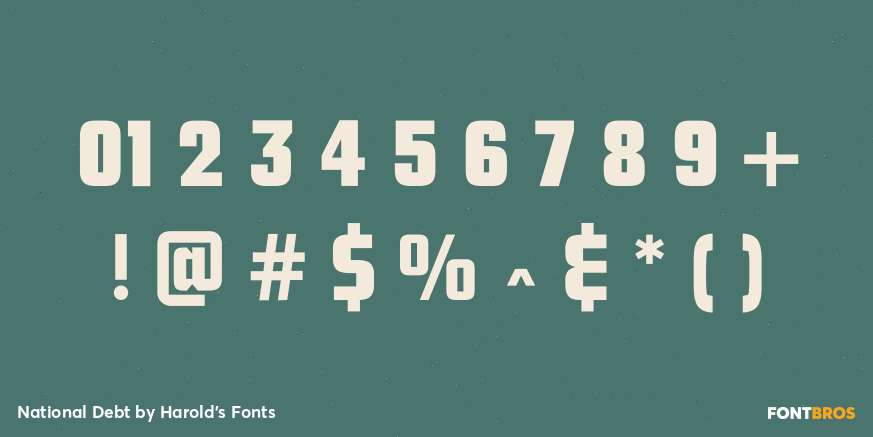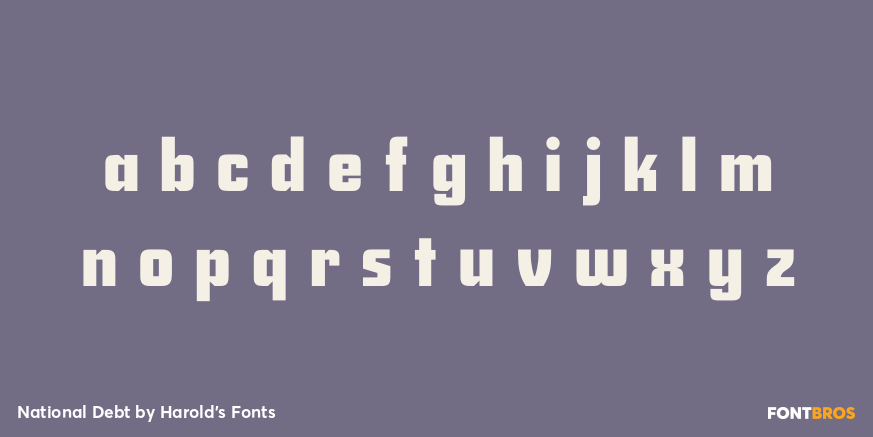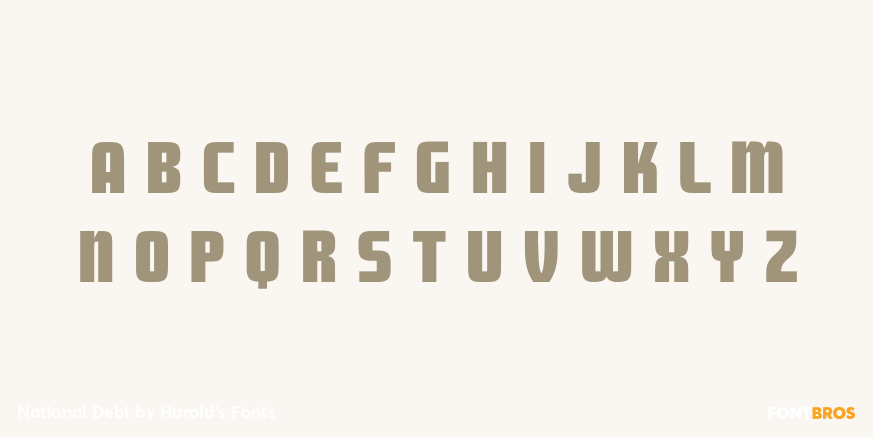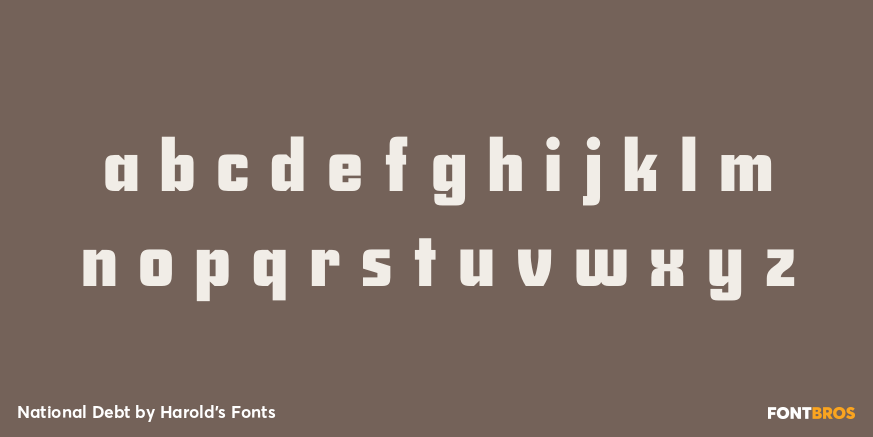
National Debt
NATIONAL DEBT is a bold, squarish design with the solid curves of a vintage car or a retro refrigerator. I originally designed this for a 1940s-themed event when I couldn't find quite what I was looking for. Now there are three versions: the solid original, Hilite, and 3-D that can be used separately or layered together.